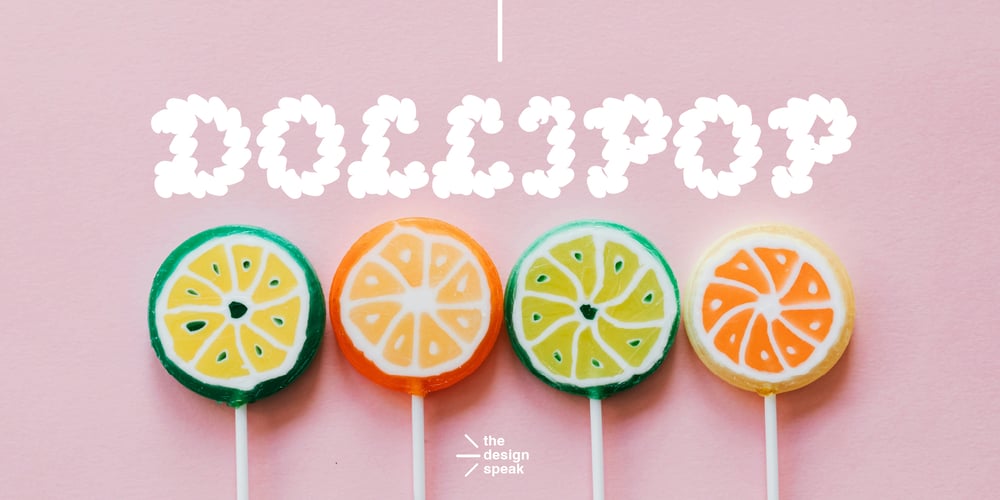
Dollipop Font Family was designed by Edward Marshall and published by The Design Speak. Dollipop contains 1 styles and family package options. This typeface bursts with vibrant playfulness, perfect for candy packaging or anything whimsical! Its letters are shaped in a delightful Ziggy pattern, giving them a wavy, bouncy rhythm that feels alive and sugary. The curves and edges mimic the twists and turns of wrapped taffy or spiraled candy canes, making each character appear like it’s dancing across the packaging. Bold, round, and slightly irregular, this typeface captures the energy of a sugar rush with an endearing, hand-crafted vibe that makes every letter look good enough to eat!